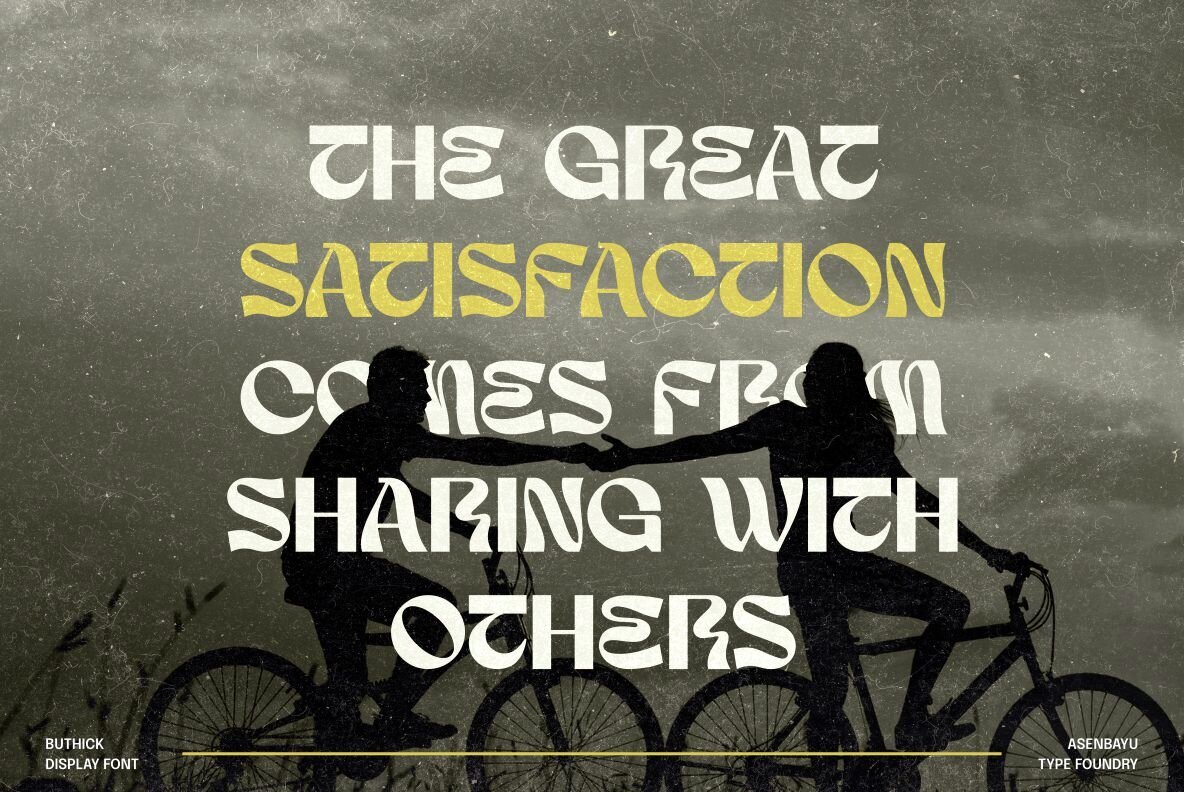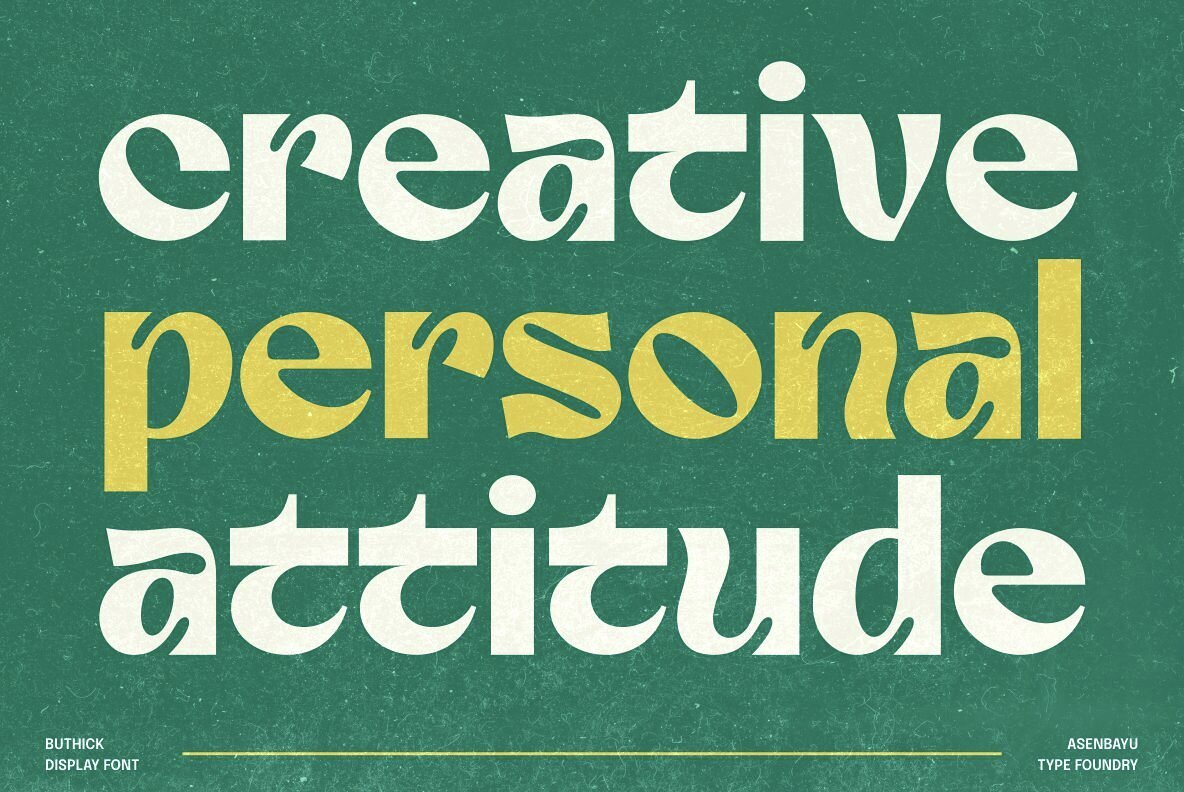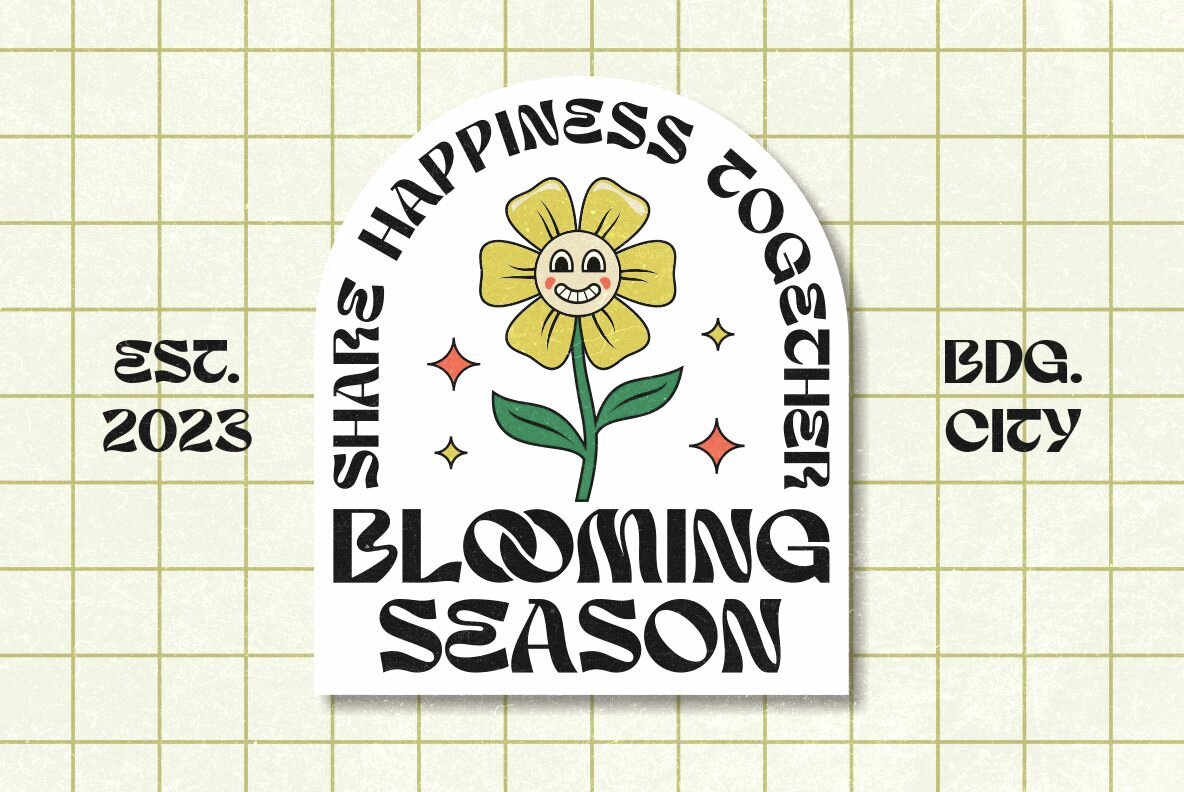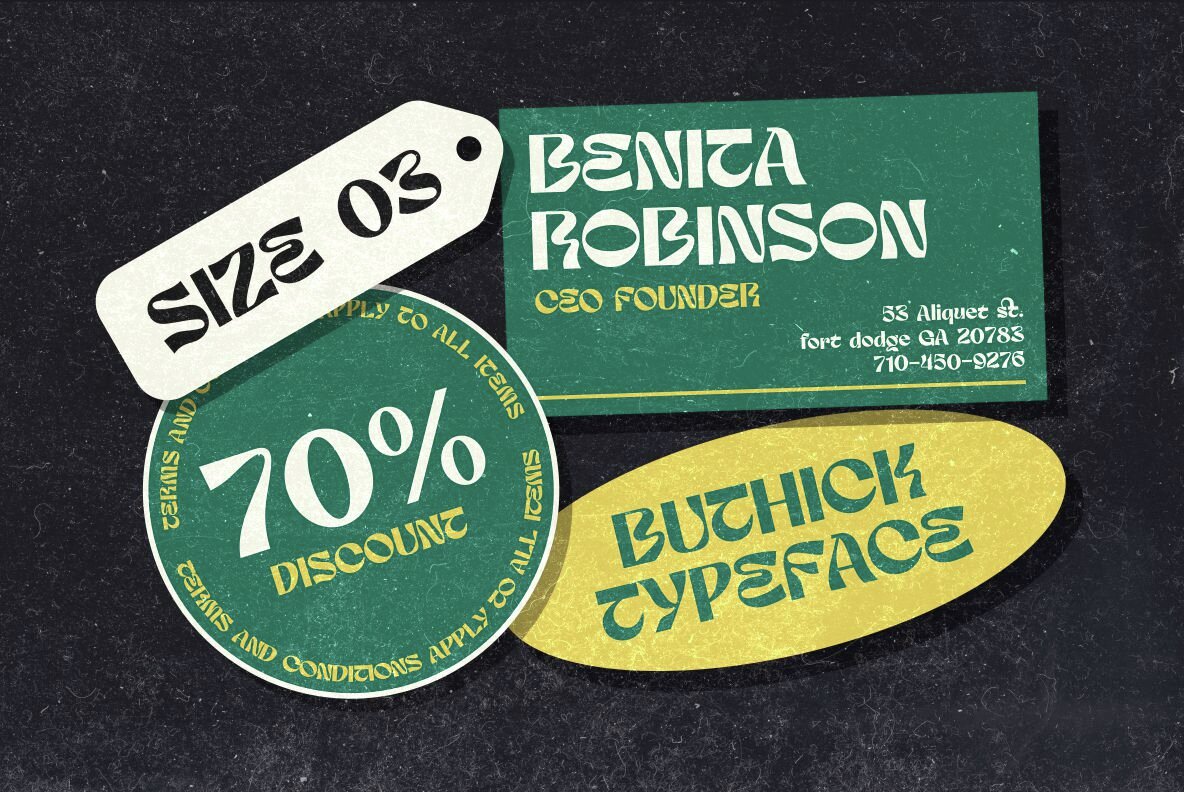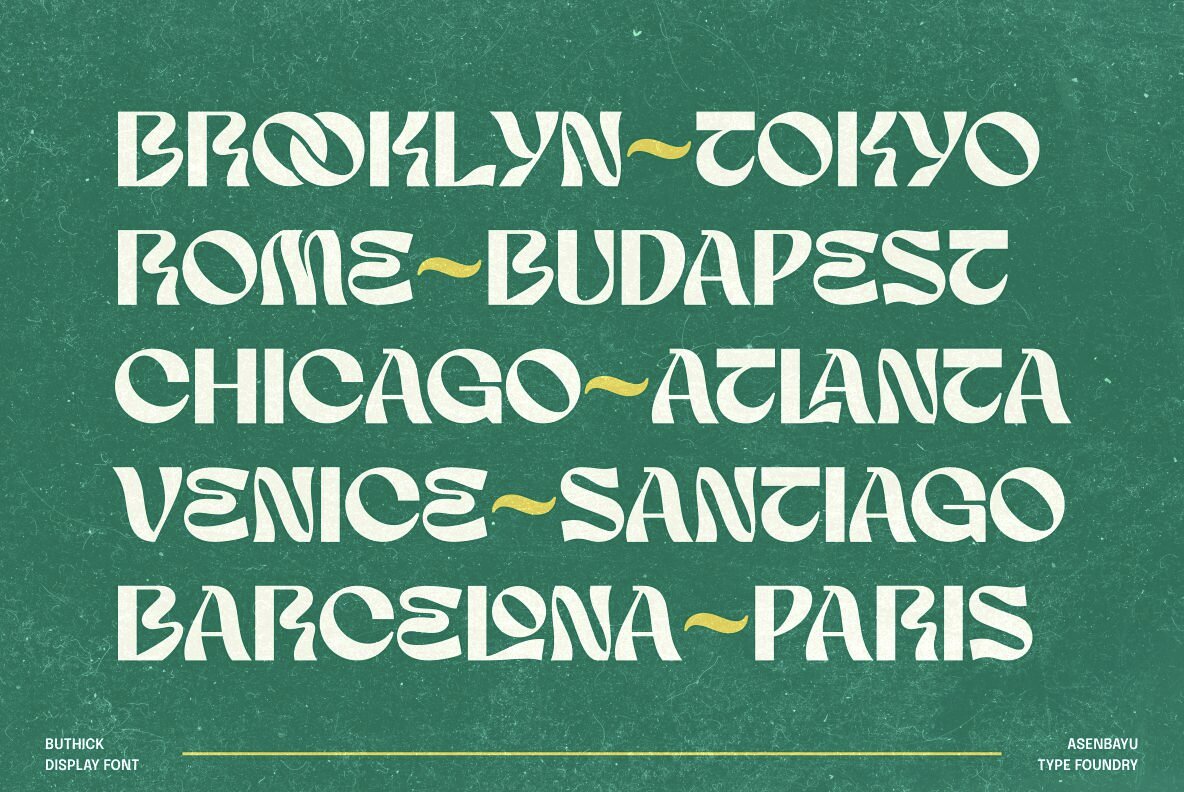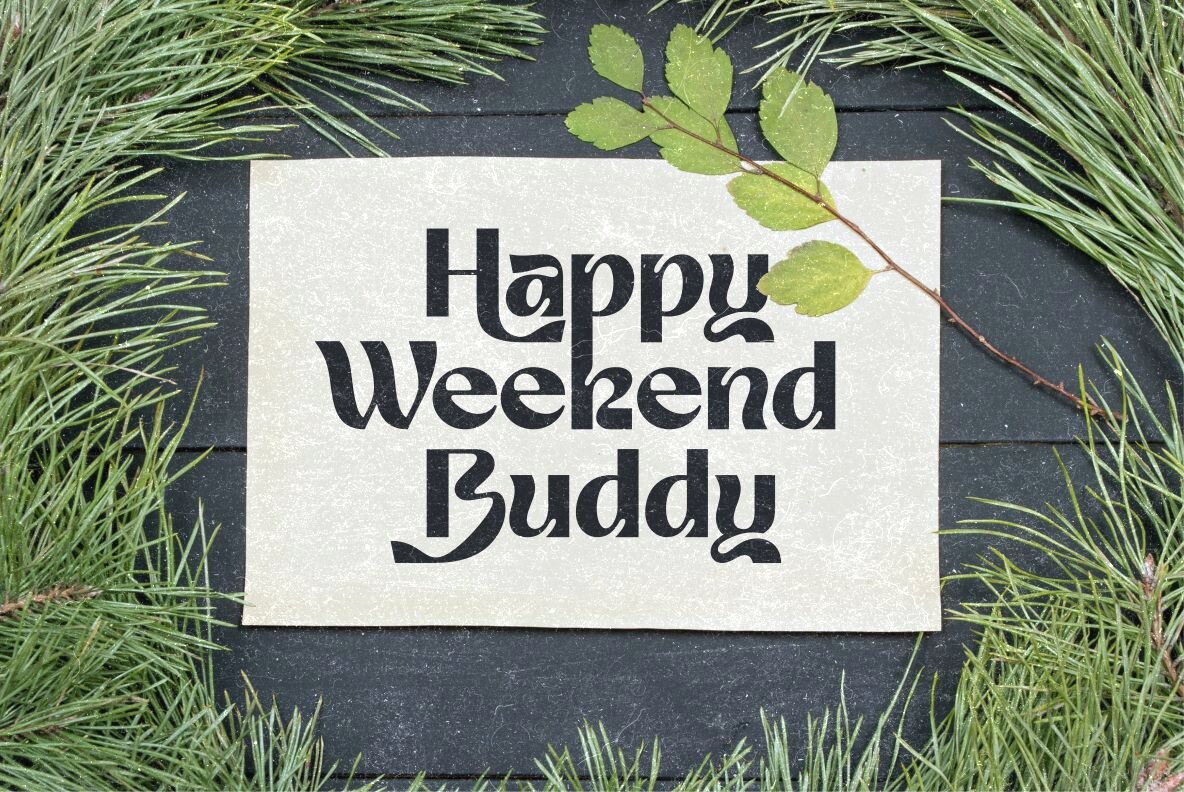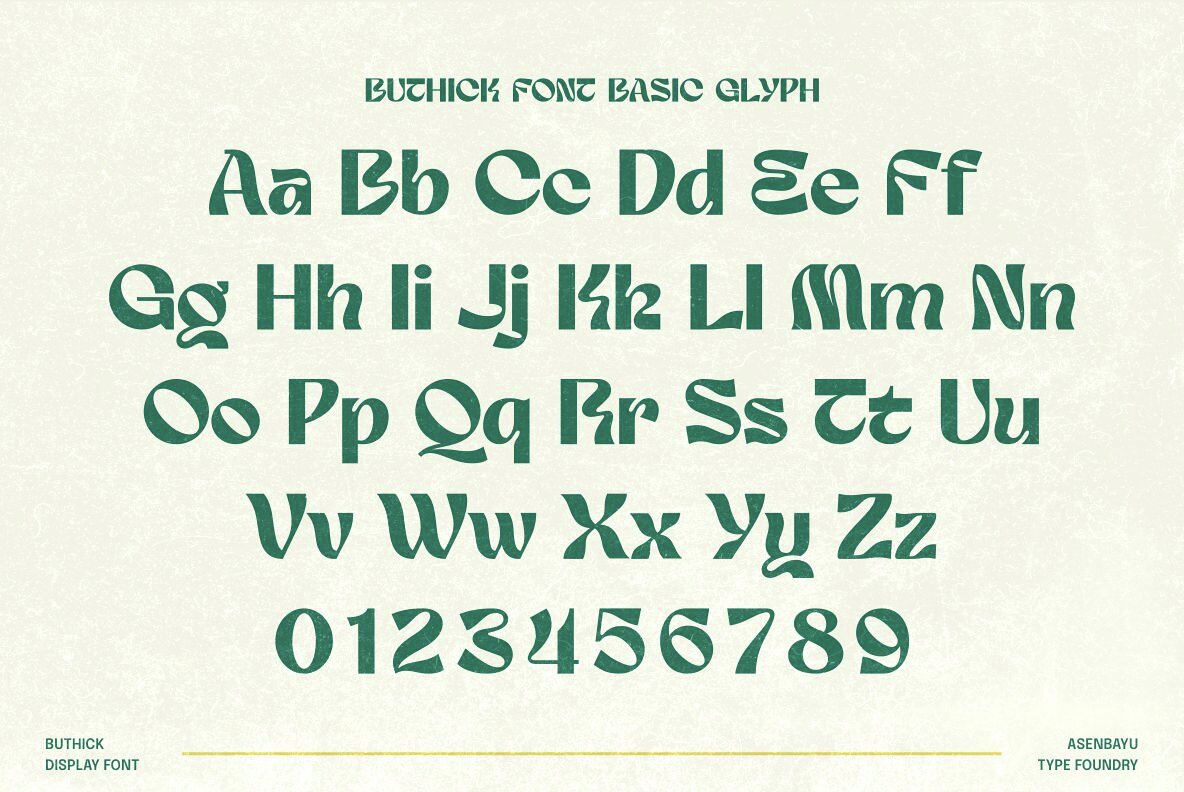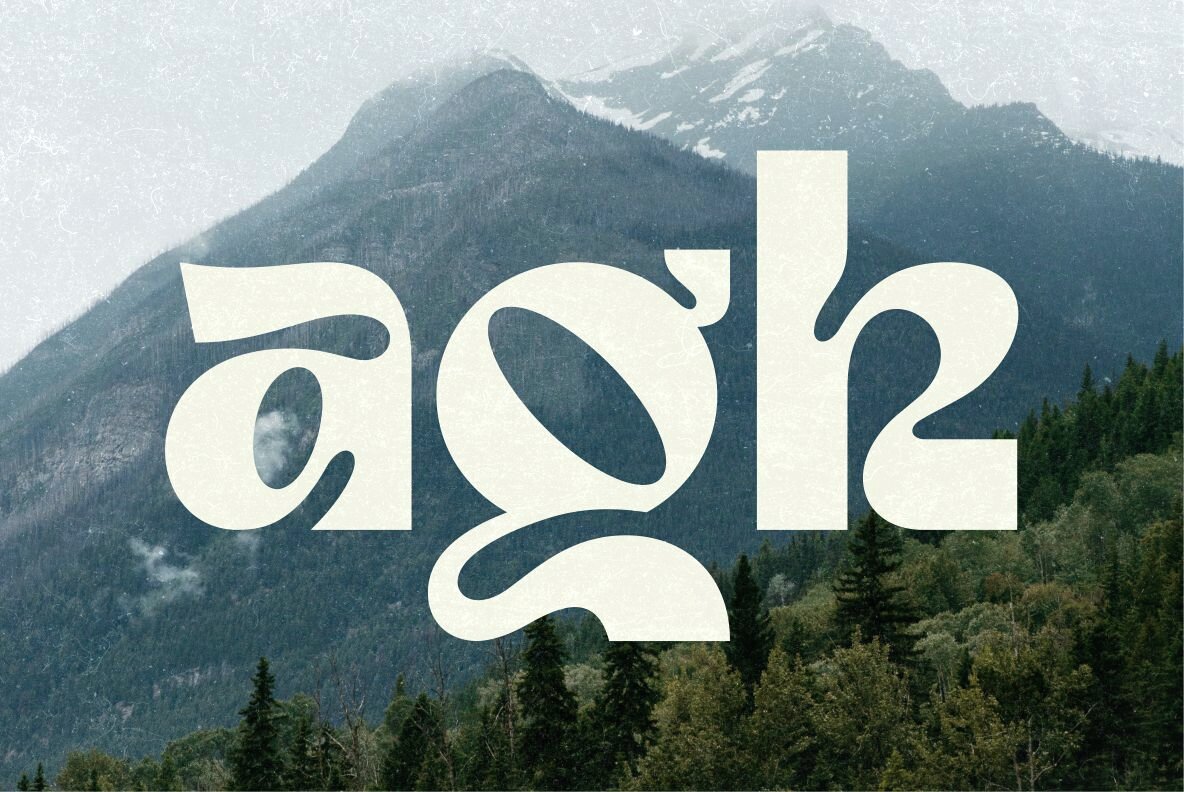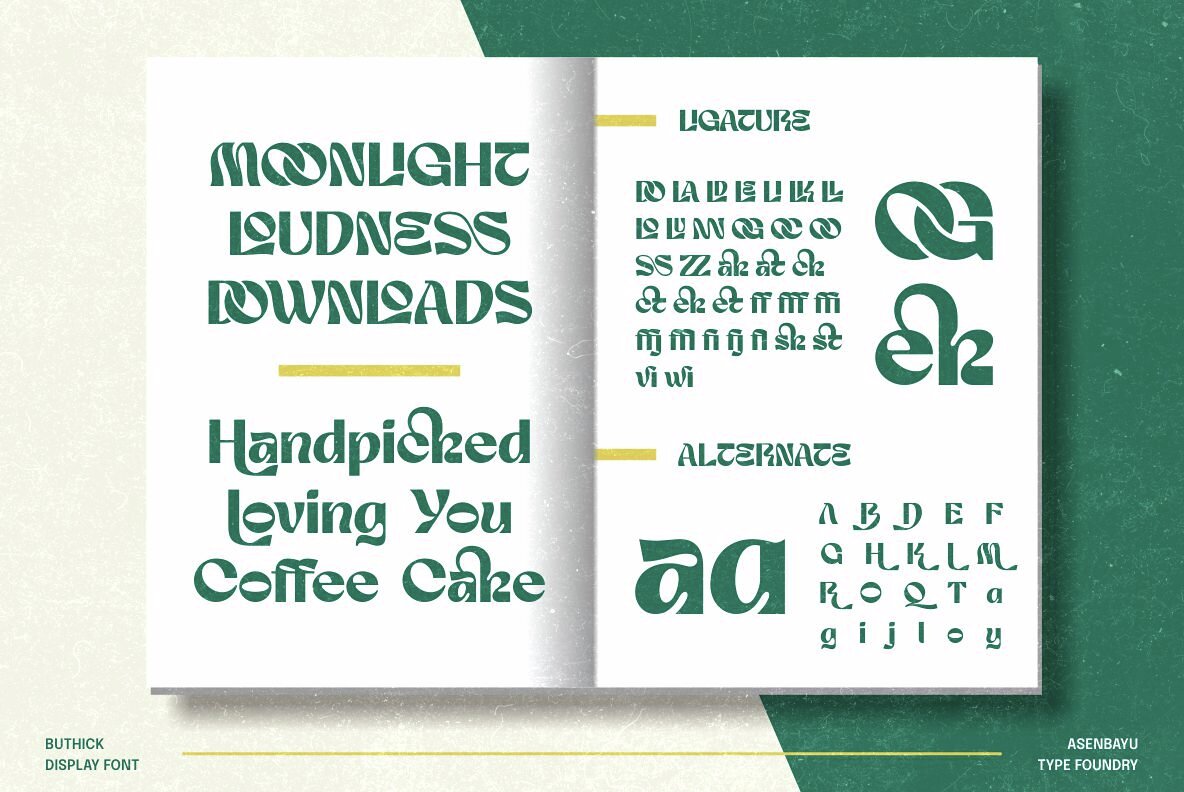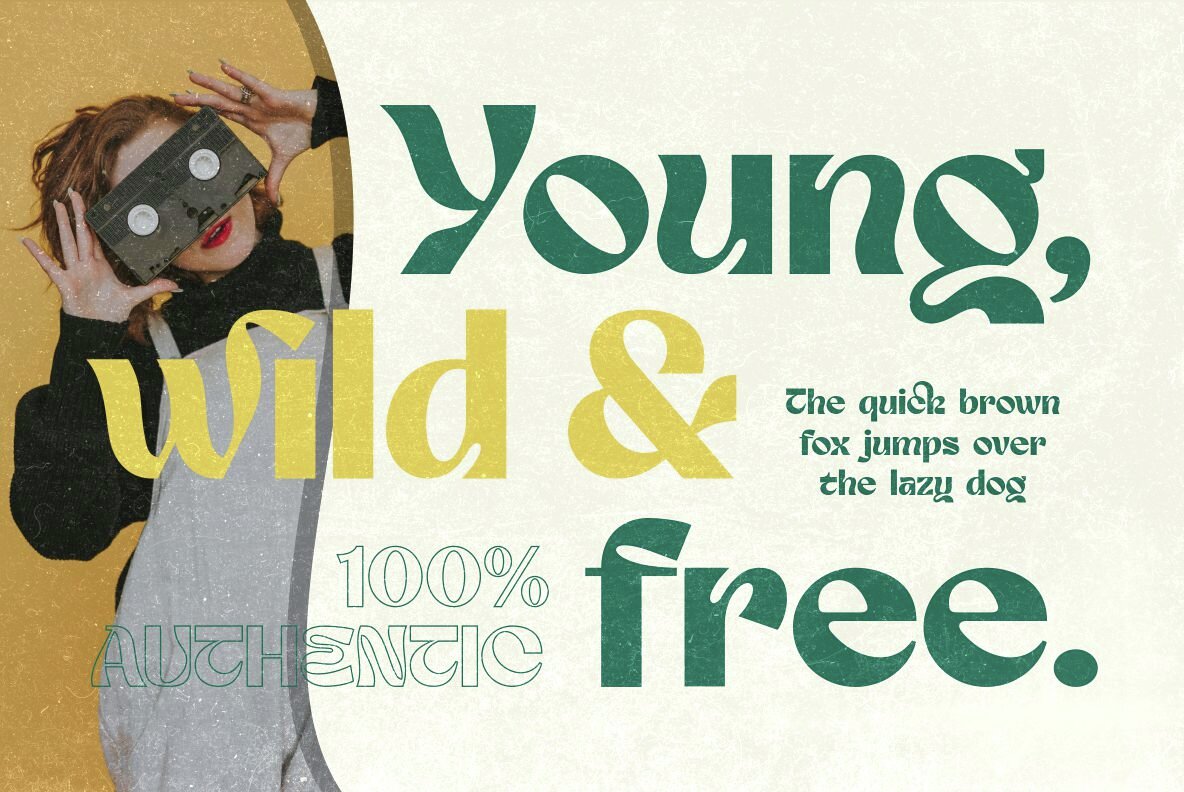
Buthick Font
Buthick Regular
Buthick is a unique decorative display font. This font is characterized by being bold and conveys a pleasant image. This font also has a modern feel with a sans serif outline. You can use this font in both modern and retro designs. This font is suitable for trendy packaging label designs, unique desired logos, poster designs, fashion and many more. Buthick font features: Kerning, standard glyphs, stylistic alternates, stylistic ligatures, symbol, punctuation and multilanguages supported.